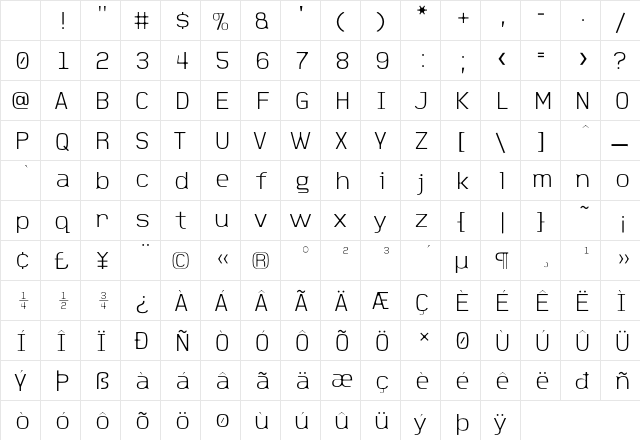
FauxCRA Light Free Font
FauxCRA Light
FauxCRA Family
Complete FauxCRA Light glyph index. Displaying only characters natively supported by FauxCRA Light font.
Design Context for FauxCRA
FauxCRA is a composed and adaptable typeface that performs quietly and consistently across a wide range of design contexts. Its slender proportions lend an understated elegance to any composition.